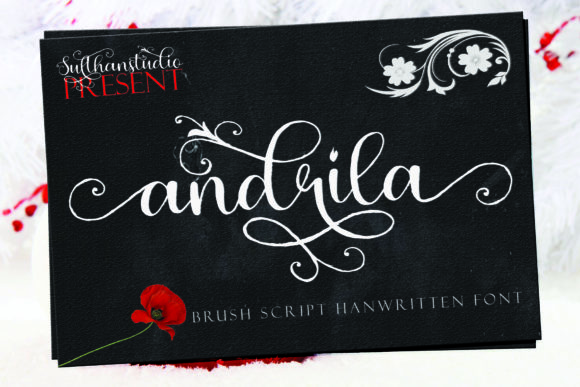
The Quest for the Perfect Script Font: Discovering Andrila
I’ll never forget the time I was working on a project for a client who wanted a custom logo with a personal touch. I had spent hours browsing through font libraries, but nothing seemed quite right. That was until I stumbled upon Andrila, a stunning and sweet script font that instantly caught my eye. In this article, I’ll share my experience with Andrila, its features, and how to make the most of this beautiful font.
An Honest Review of Andrila
What I Love About Andrila ✨
- 💫 Elegant and flowing script style that’s perfect for adding a personal touch to designs
- 🎨 Versatile and works well for a variety of design projects, from logos to invitations
- 🌈 Beautifully crafted with attention to detail, making it a joy to use
- ⚠️ Limited availability of certain special characters, which may require some creative workaround
- 🤔 May not be the best fit for very formal or traditional designs, as it has a distinctly modern feel
The Story Behind Andrila
Andrila was designed by a team of typographers who wanted to create a font that would add a personal touch to any design project. Inspired by traditional calligraphy, Andrila combines elegance and modernity to create a unique and versatile font. The designers aimed to create a font that would be both beautiful and functional, making it perfect for a wide range of design applications.
Q: What is the best way to use Andrila in my designs?
A: Andrila is a versatile font that can be used for a variety of design projects, from logos to invitations. Experiment with different font sizes, colors, and styles to find the look that works best for your project.